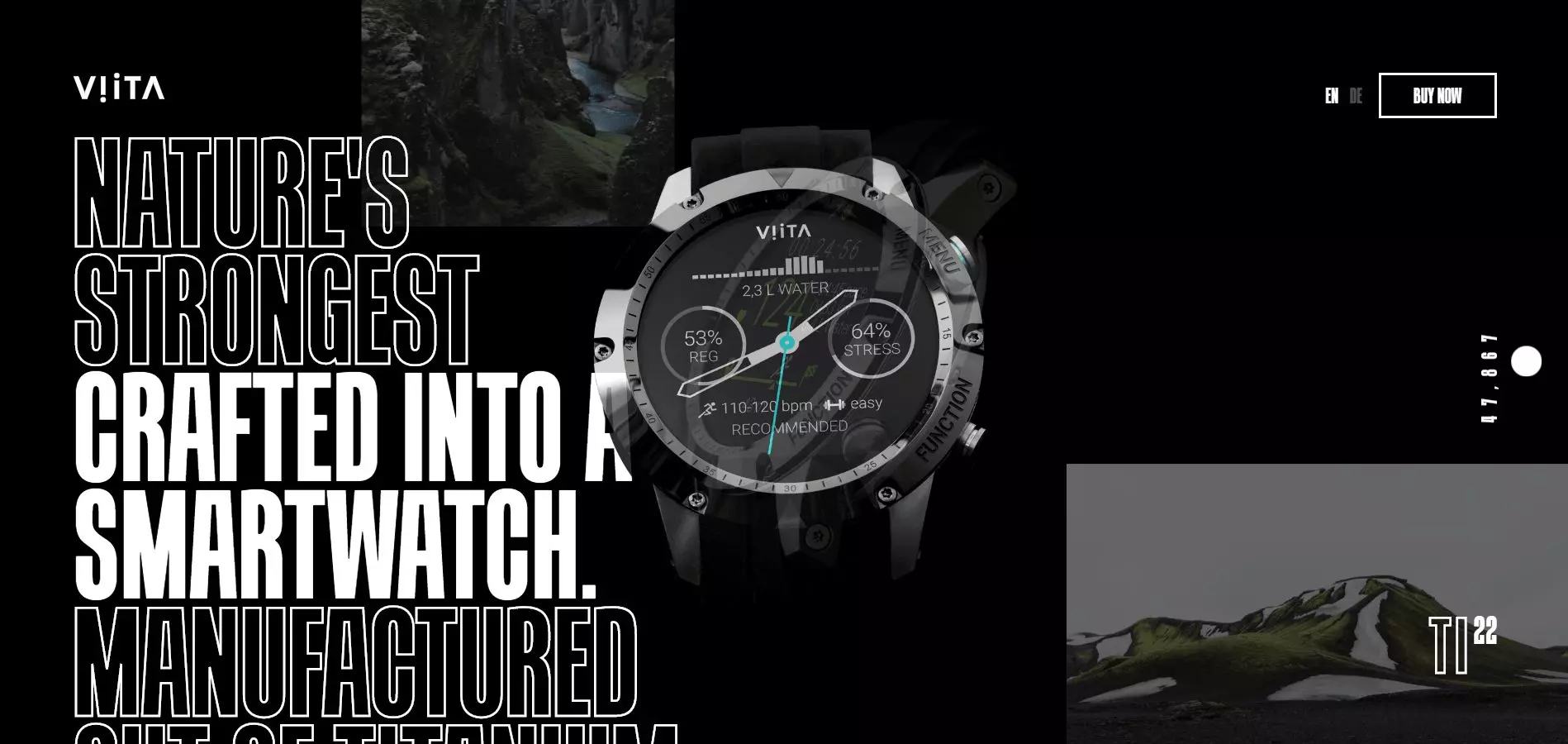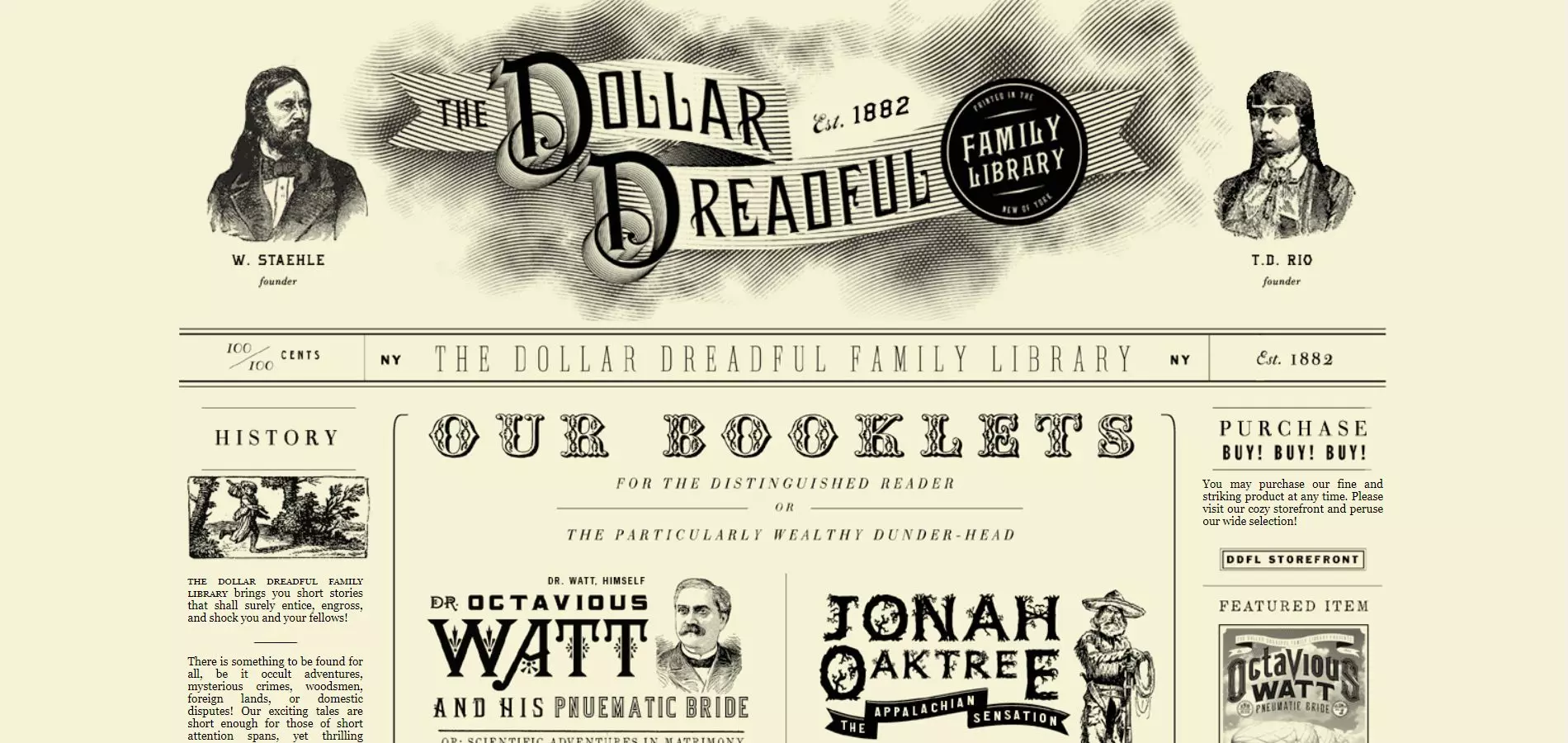
Let’s discuss 7 website fonts trends for 2020 and a way to identify your own fonts, using a simple and free tool.
Fonts always were super important for the overall design of a website, poster, T-shirt, advertisement, etc., and they still are. You should pay huge attention to this aspect, a font can dramatically change your website design and feel.
It is important you know how we identified these font ideas and trends. We used several methods:
• We discussed it with some of the experienced web designers
• We analyzed several huge online publications and we discussed it with their chief editors.
• We analyzed what the masses of people think about fonts trends
For 2020, I recommend you to take a look at these 7 website fonts ideas. Consider using them depending on your website design, company industry, business message and voice, and your marketing strategy. You should always test several fonts before deciding which one you will implement.
Let’s start.
Popping & Big Bold Fonts
Large and bold fonts are attracting huge attention from your website visitors. The largest online publications will change their actual design with the looks of old newspapers. Just look at this picture, would you read an online publication that would look exactly like this? I would, it looks awesome and has hardly any pictures, makes the topics much more visible and interesting.
Custom Hand Lettering Fonts
Hand lettering fonts look great and can make your website stand out of the crowd in seconds. But be advised, you should use them carefully, it is very simple to overcomplicate your website design.
Creative Outline Fonts
Some of the best logos in the world are using outline fonts. You will also find in headings and to emphasize parts of texts. Use them in 2020 for your website, just look at this picture and let your mind think about how to implement it in your projects. It looks awesome.
Vintage Fonts
Vintage and retro things are getting more and more present in our lives. Retro cars, motorcycles, airplanes, and boats are more and more demanded and bought.
We also look to buy vintage items and furniture. The same happens when we discuss vintage fonts. This trend will become more diversely present in 2020.
Minimalistic Fonts
Another huge trend, not only for fonts, is the minimalist design. Some of our homes follow the minimalist principles, so we discovered that it is much easier to live in such a décor. Less is more, right? Minimalistic fonts have a great impact on websites. Still, use them carefully, the overall website design should match the elegant and minimalistic font.
Contrasting Serif Fonts
You already saw the contrasting serif fonts on many online and written publications. Use them to make your texts stand out.
Varying Script Fonts
Scripts fonts were created to imitate the handwritten fonts. Use them whenever you want your content to look classic, playful, or serious.
Right after, this powerful AI software will identify the font you are looking for, it will tell you if it is free or paid, how much it costs, and where to get it from. You will also get over 60 similar free and paid fonts.